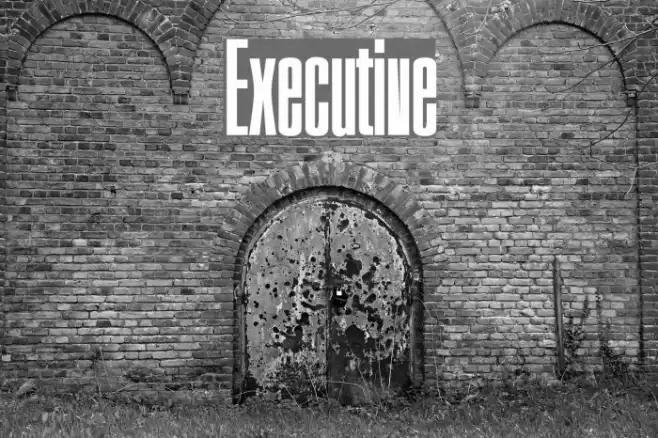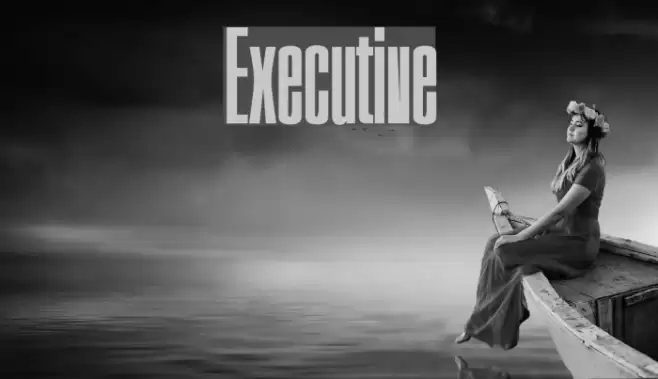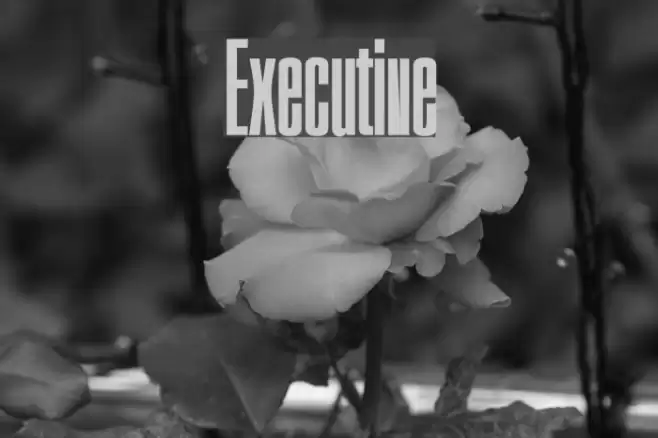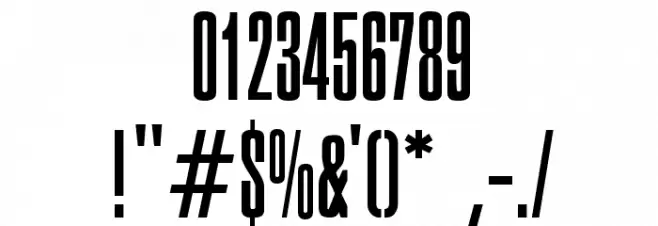
Executive Font
Executive Description
This font features a bold and impactful design with tall, narrow letterforms that convey a sense of authority and modernity. The uppercase letters are particularly striking, with a strong vertical emphasis and minimal spacing between characters, creating a cohesive and powerful appearance. The lowercase letters maintain the same boldness, ensuring consistency throughout the typeface. The numerals are equally robust, making them suitable for attention-grabbing displays. The special characters complement the overall style, adding versatility for various design needs. This font's high contrast in stroke thickness enhances its readability and visual appeal, making it ideal for headlines and branding projects.
A bold, modern font with tall, narrow letterforms and high contrast, perfect for impactful designs from Futuristic fonts.
- Proposed Projects: Ideal for branding, advertising, poster design, and any project requiring a strong visual impact.
- Character Spacing: Tight